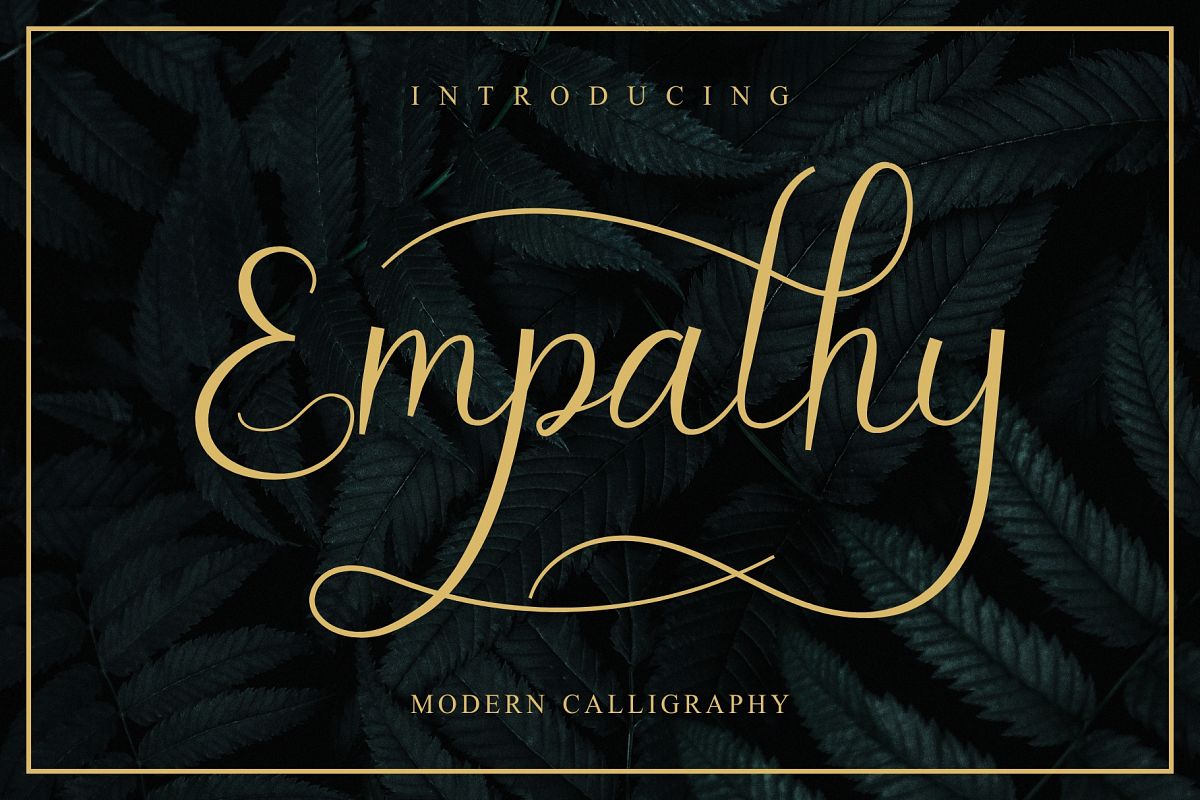
Empathy Modern Script
This font is made very carefully to produce an original hand touch so that it can give a natural impression on the design, it is very suitable for invitations, logos, brochures, business cards, photography, and for other design needs.
This font consists of:
2. Uppercase & Lowercase characters
3. Opentype features: stylistic alternates, ligature, titling, swashes, stylistic sets